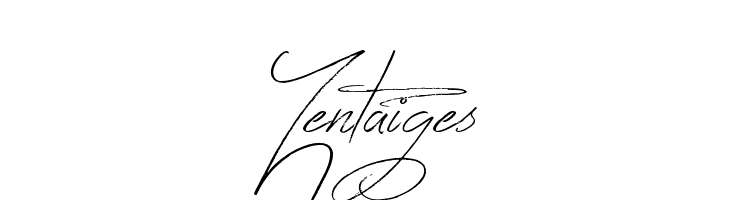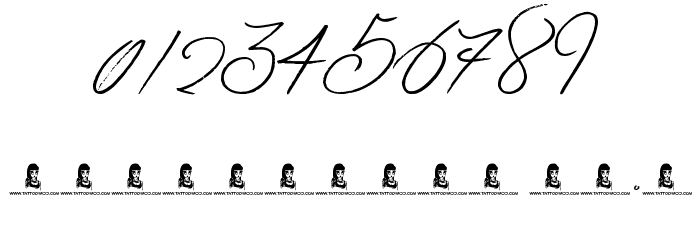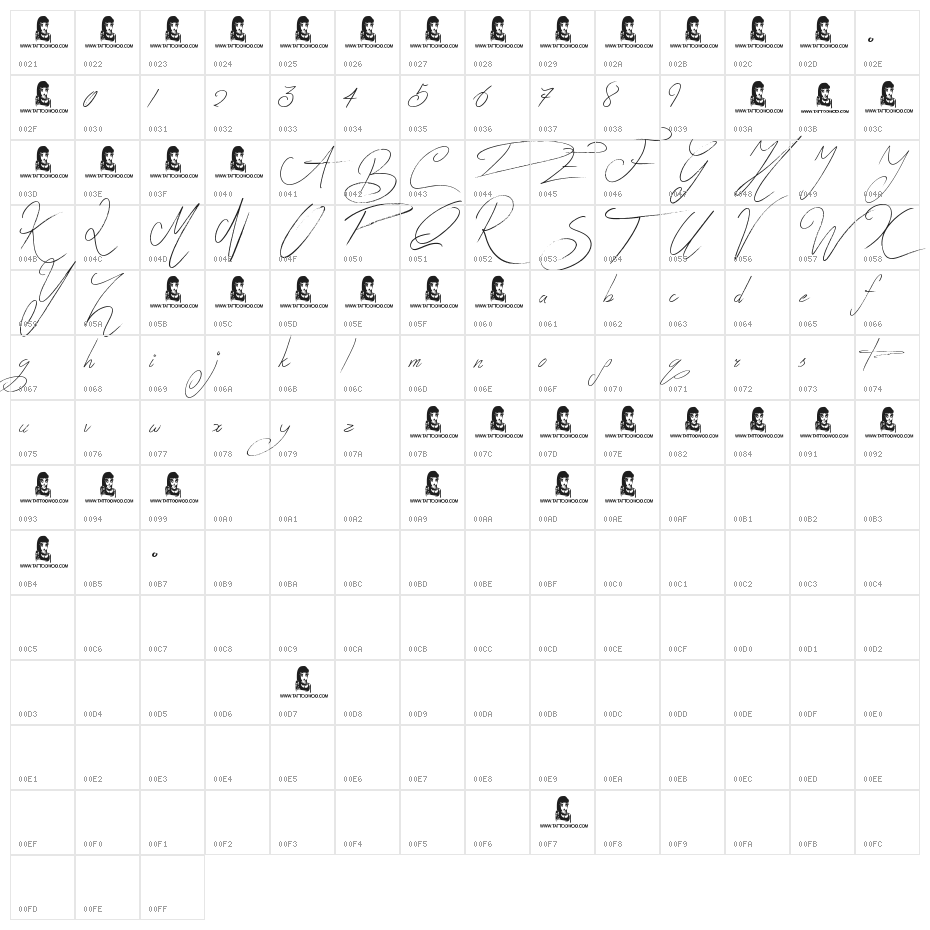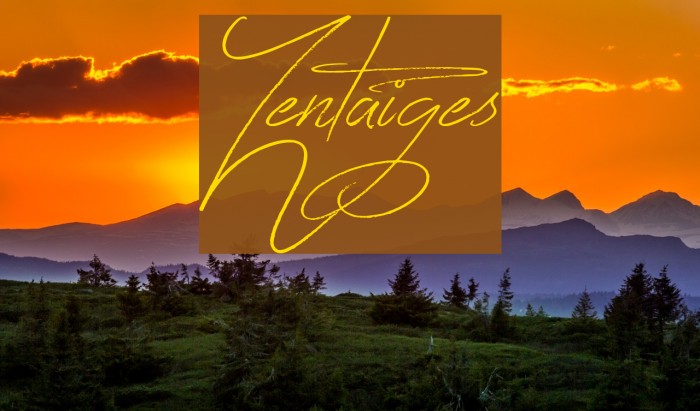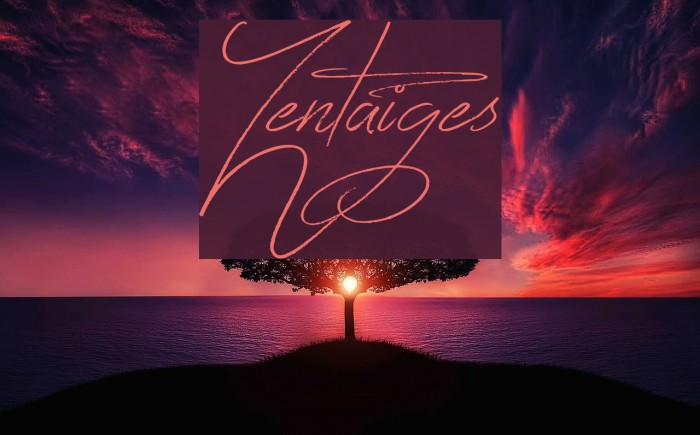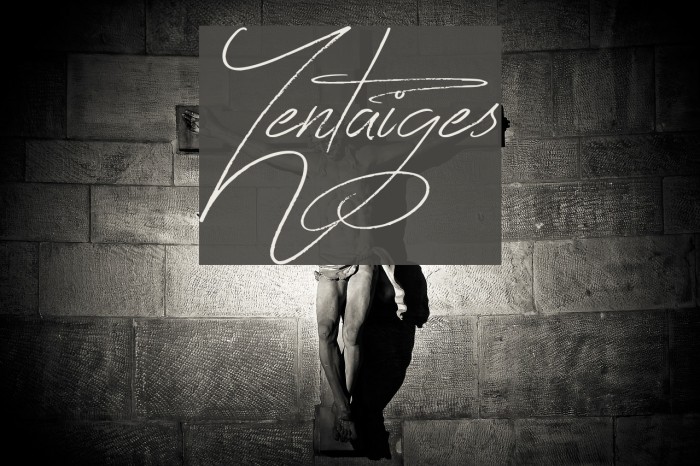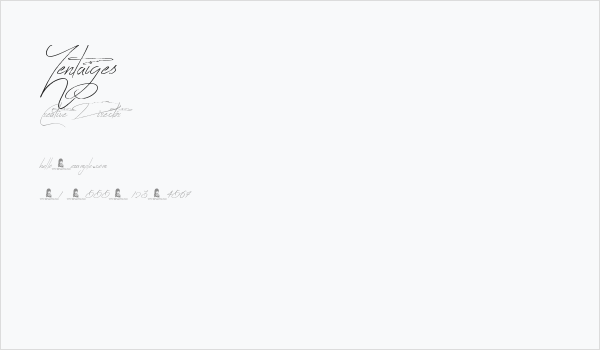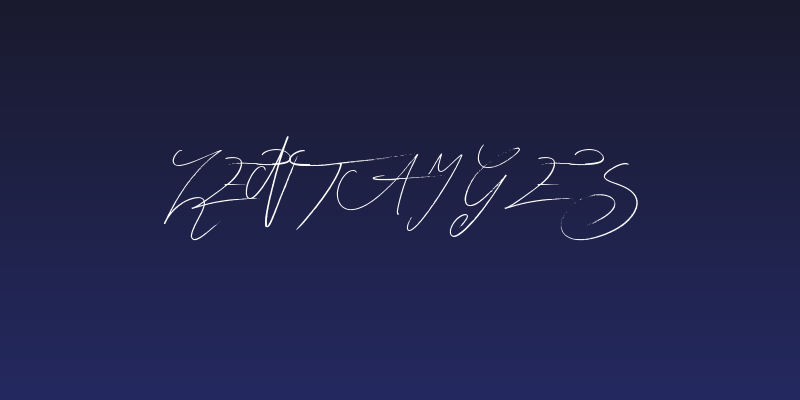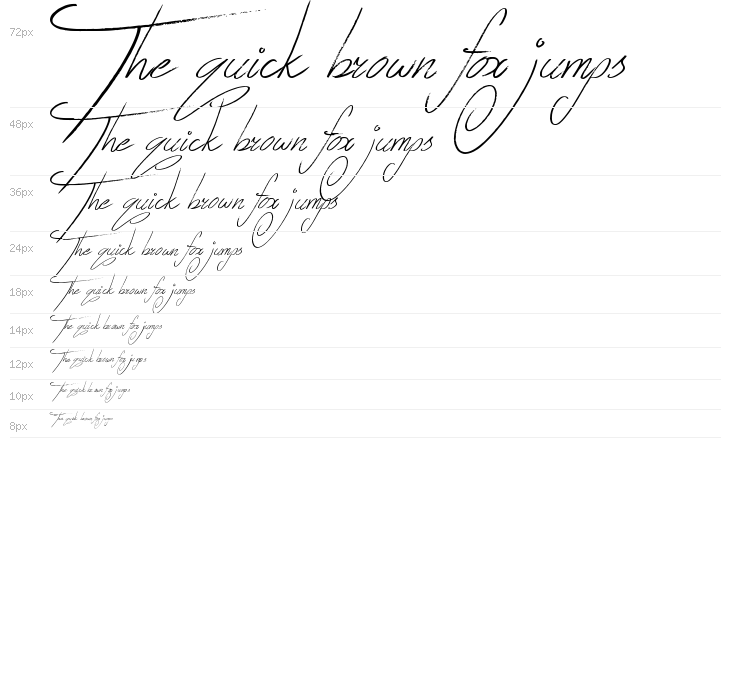
Zentaiges Font
Zentaiges Description
This elegant script font features a flowing, cursive style with intricate loops and swashes. The uppercase letters are ornate and expressive, while the lowercase letters maintain a consistent, graceful flow. The numerals are stylishly integrated with the overall design, maintaining the same fluidity. The special characters are crafted with the same attention to detail, making them seamlessly fit with the rest of the typeface. This font exudes sophistication and is perfect for projects that require a touch of elegance and refinement.
Overall StyleElegant
Use CaseLogos, Invitations, Branding
Proposed ProjectsIdeal for wedding invitations, luxury branding, elegant stationery, and high-end product packaging.